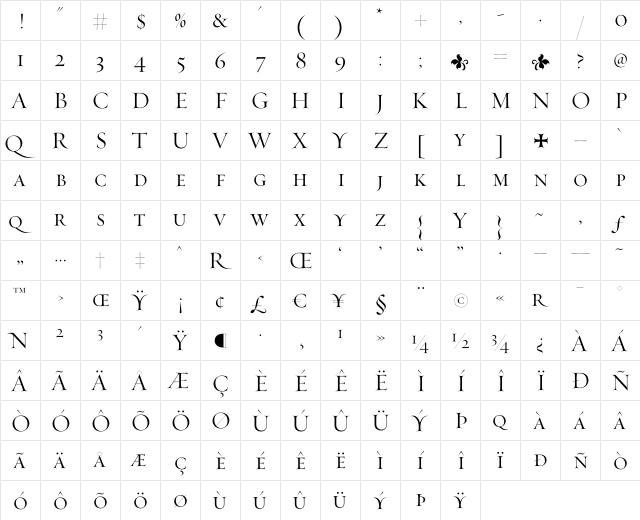
Requiem Fine-HTF-SmallCaps
Design Context for Requiem Typeface
Requiem offers clean, dependable letterforms without strong stylistic allegiance, making it a practical choice for designers who need flexibility.